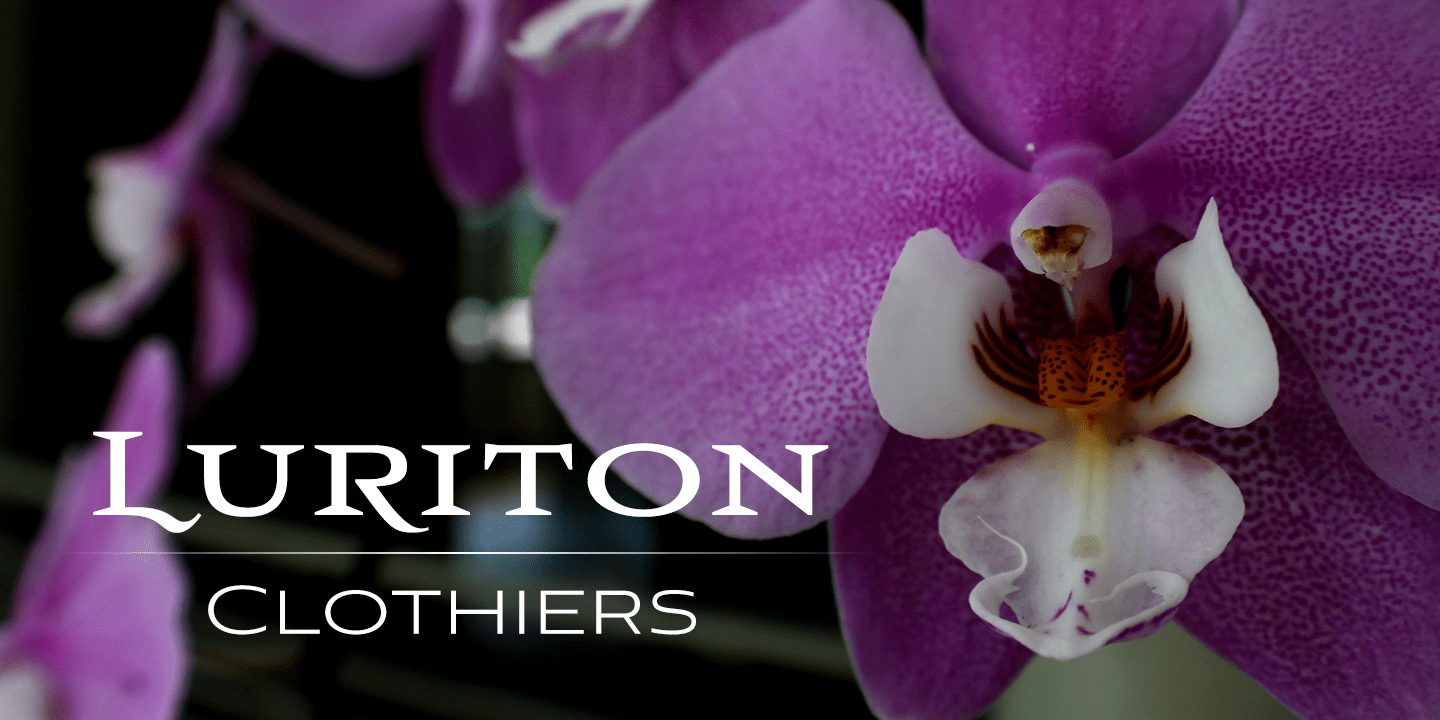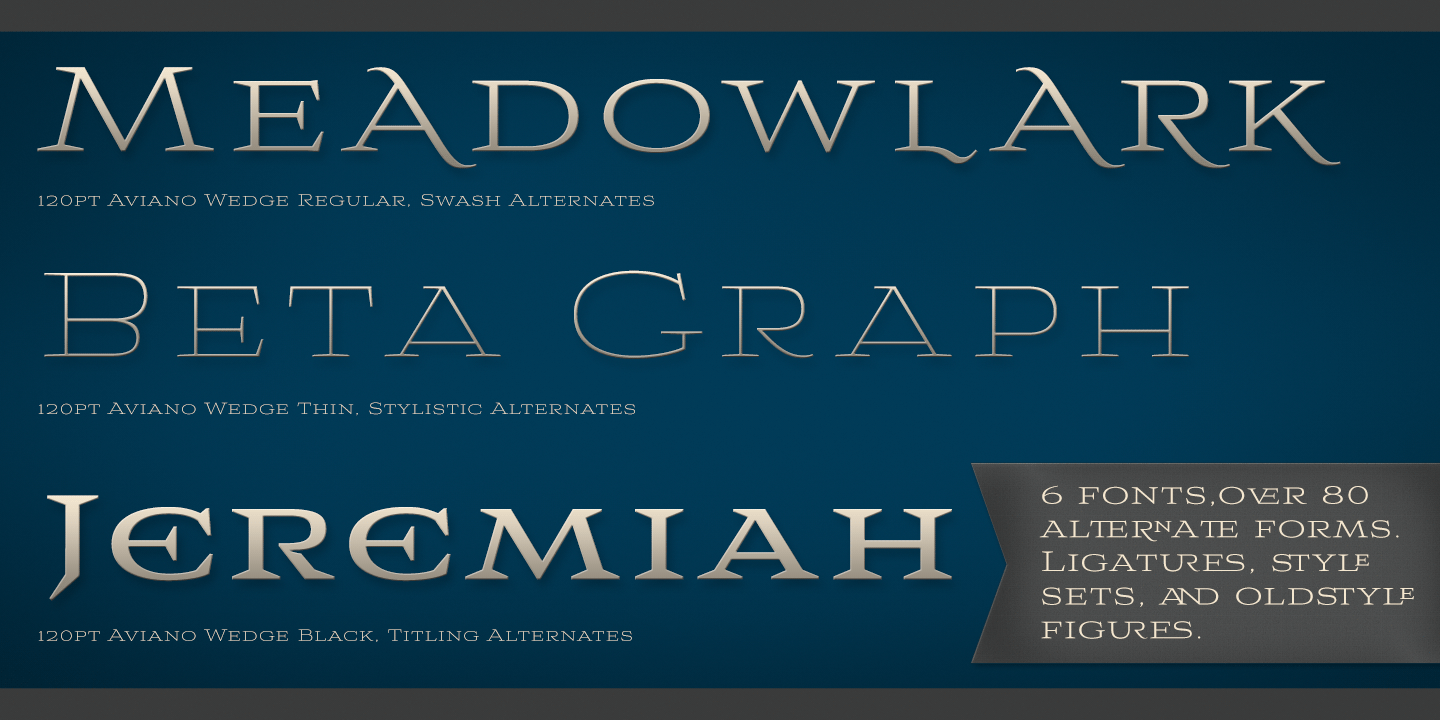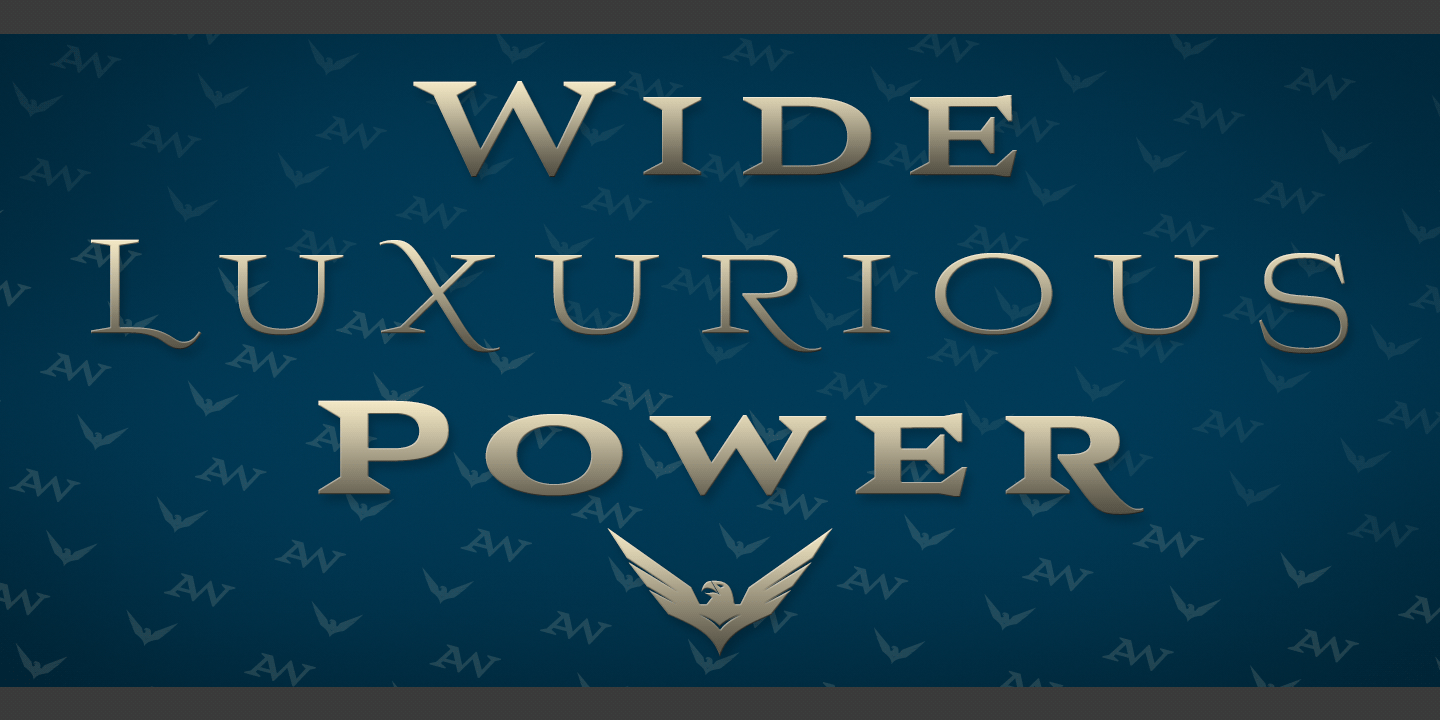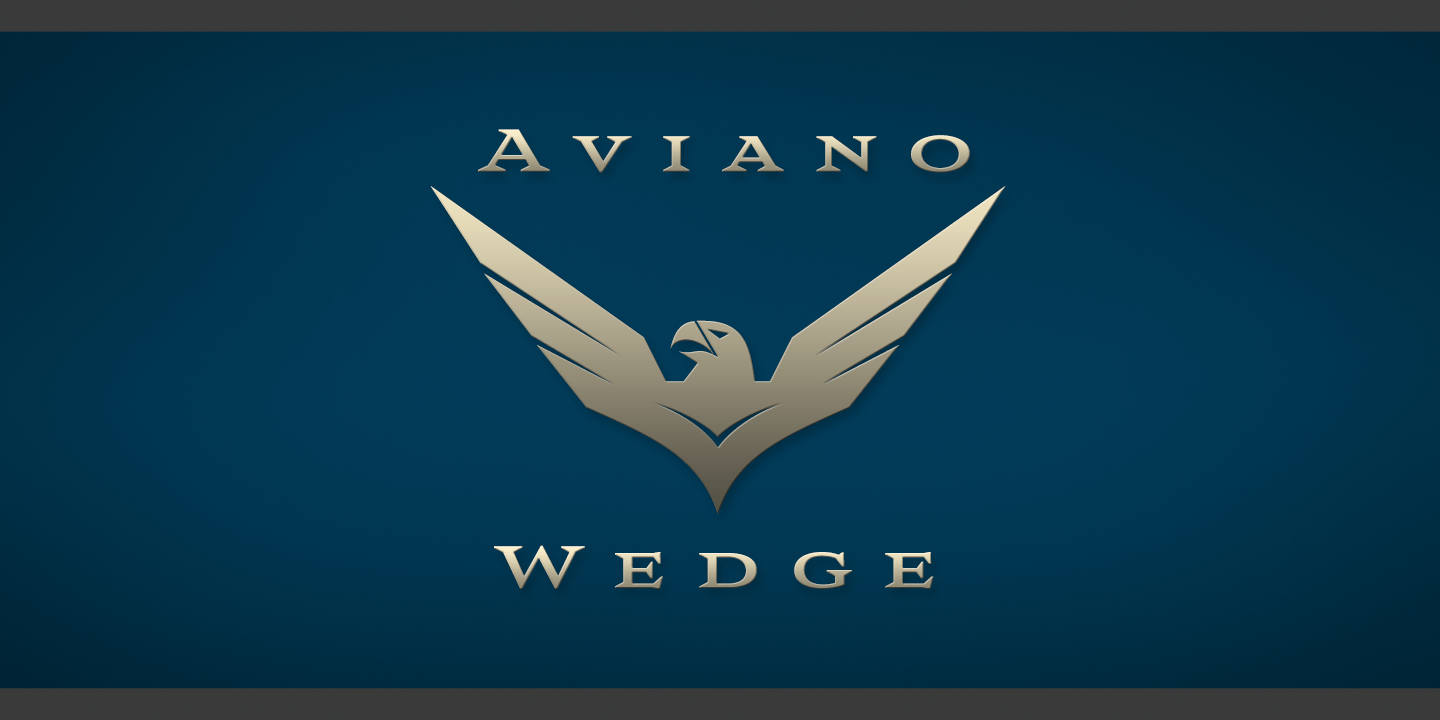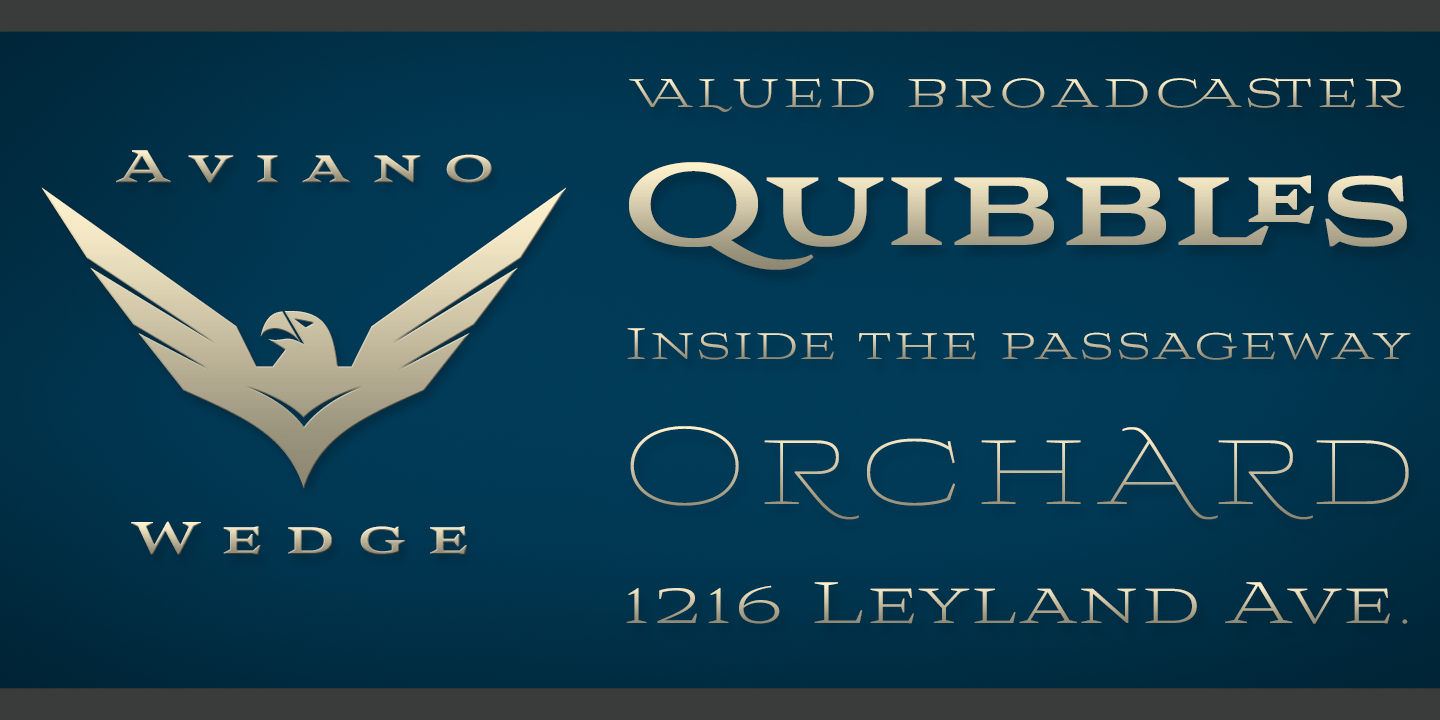
Aviano Wedge
Firm and resolute, the sharp, triangular wedge serifs of the new Aviano Wedge stamps your copy with the confidence of late 19th century luxury, wealth, and power. Indicative of banknotes and financial strength, the large, elegant Aviano Wedge is composed in the Latin style. Aviano Wedge takes its original footing from period signage found on a building in Asheville, NC. While shaped largely by engraved faces, the elegant Aviano Wedge maintains the extra-wide comfort and ease found with the rest of the Aviano series.
Aviano Wedge comes in six different weights and is packed with OpenType features. As a complement to these characters, Aviano Wedge includes 40 discretionary ligatures for artistic typographic compositions. To see these features in action, please see the informative .pdf brochure. OpenType capable applications such as Quark or the Adobe Creative suite can take full advantage of the automatically replacing ligatures and alternates. Aviano Wedge also includes support for all Western European languages.
This new face has also been designed to pair well with the rest of the Aviano series, including our best-selling Aviano, Aviano Serif, Aviano Sans, Aviano Didone, Aviano Flare, Aviano Contrast, and Aviano Slab. Use it alone, or combine Aviano Wedge with any of these other fonts to build the strong presence you're looking for.